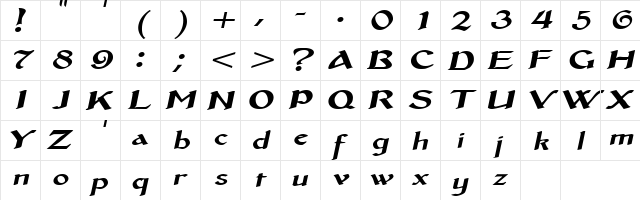
MiddleAgesExtended Italic
Design Context for MiddleAgesExtended Typeface
MiddleAgesExtended is a composed and adaptable typeface that performs quietly and consistently across a wide range of design contexts. Its italic angle brings a sense of urgency and motion to the letterforms.
Pro Tip: Try MiddleAgesExtended for annotation and caption copy alongside an upright companion — the contrast in angle creates a dynamic but ordered typographic system.